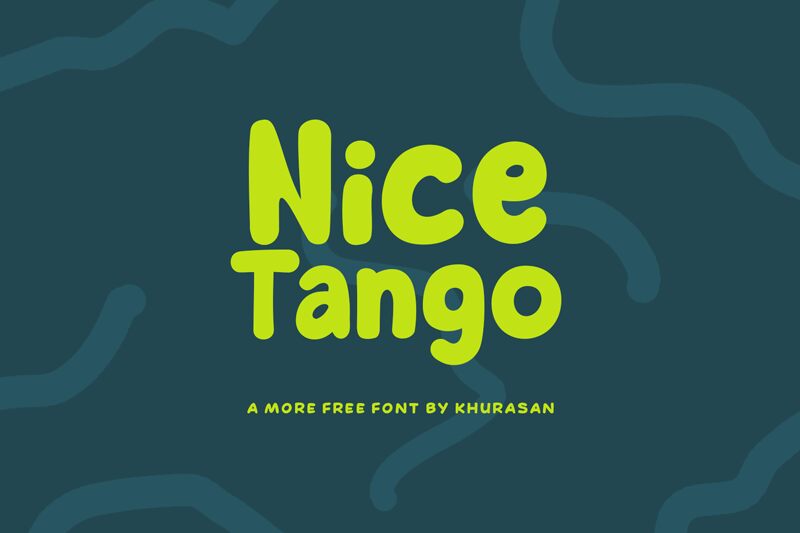
Nice Tango, a bold and playful display font by Khurasan, brings a touch of whimsy to any design.
With its cartoon-inspired style and chunky letterforms, it is perfect for children's books, packaging designs, and playful branding projects. Let this lively typeface bring your creations to life with its energetic presence and vibrant personality. Whether you're designing party invitations or creating eye-catching logos for a toy store, Nice Tango is sure to captivate your audience with its cheerful charm.